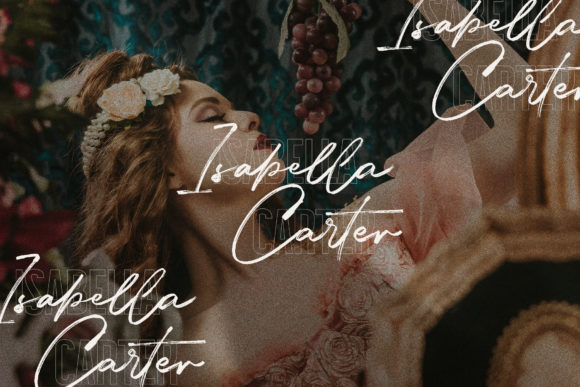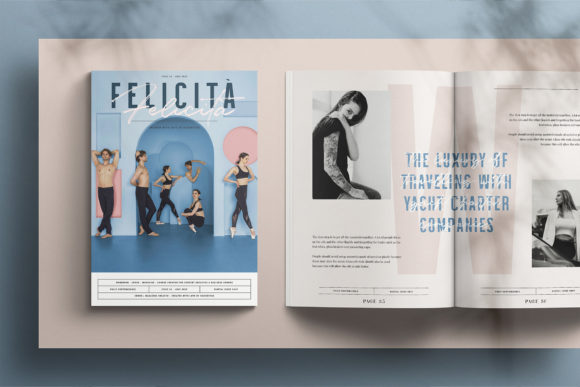
Dreaming of Spring Font
db-ku.com - Script & Handwritten -- Dreaming of Spring is a creative hand-drawn brush script that comes paired with an elegant and simple sans font. The sans & script combination will make all your projects look fresh and unique!